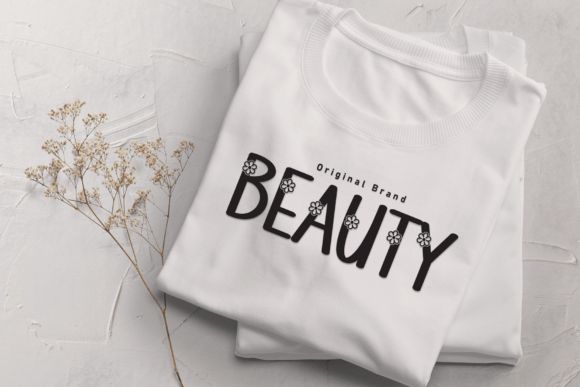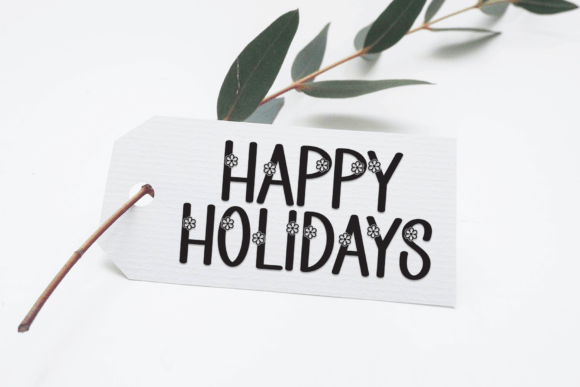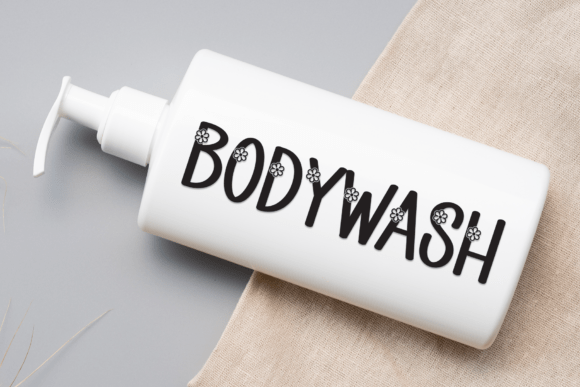
Introduction to Lily White Font
Immerse yourself in the charming allure of this display font, brimming with sweetness and a friendly vibe.
This adorable, fun-filled typeface is perfect for crafting captivating wedding invitations, engaging cards, or any design project craving a dash of whimsy Enrich your creative endeavors with this delightful font that effortlessly infuses a spirited touch into your works.